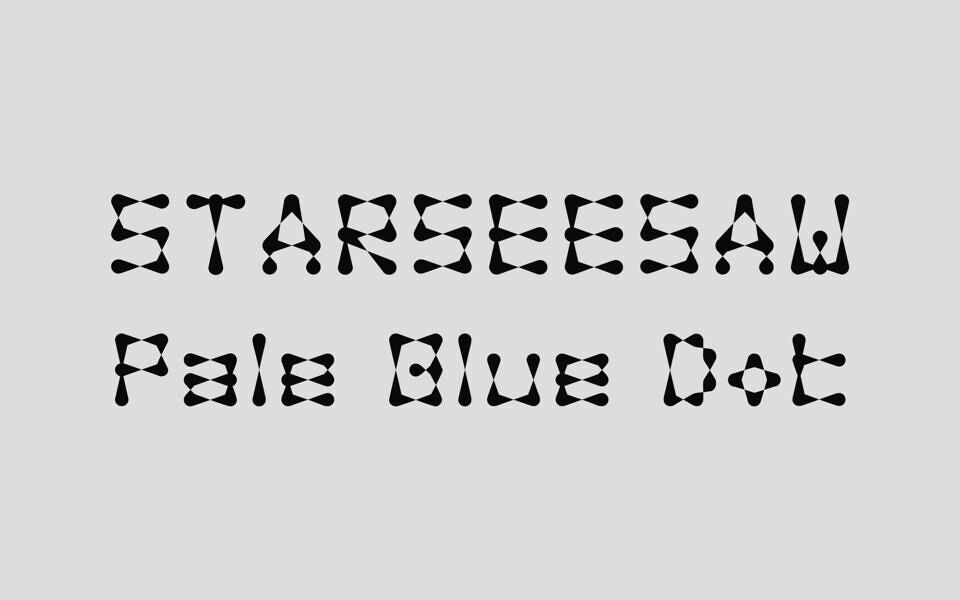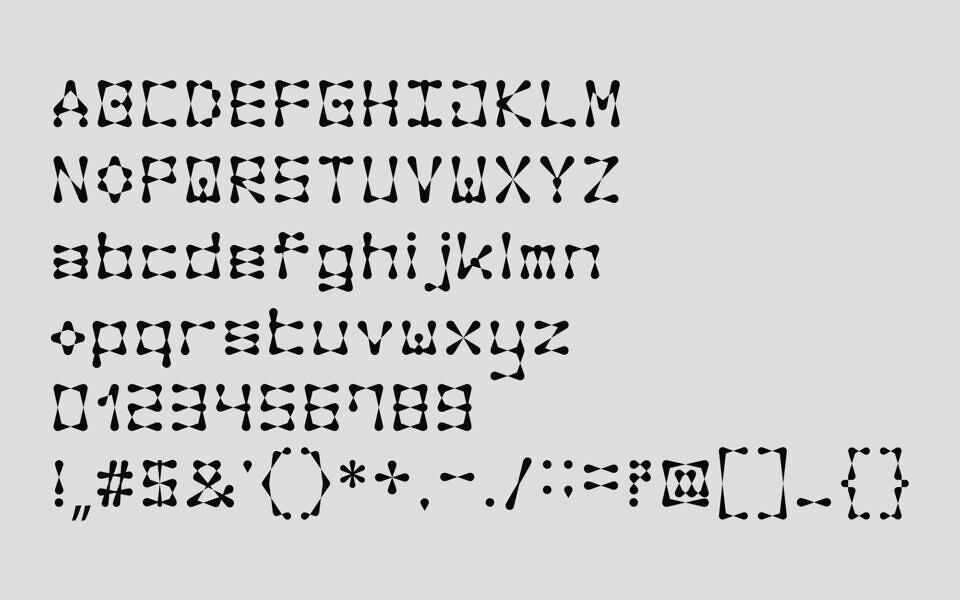
Starseesaw is a typeface developed by applying Armin Hofmann’s graphic systems. Characterized by its geometric, “non-square” (Tal-nemokkol) structure based on the Sebulsik system, the font consists of a total of 11,332 glyphs, including Korean, Latin characters, numbers, punctuation marks, and symbols.
A defining aesthetic feature is the sparkling effect created at the points where strokes meet and narrow. The typeface is composed of six distinct structures. Designed as a modular (combinatorial) system based on Hofmann’s principles, each structure features unique heights and widths, offering a dynamic typographic rhythm.